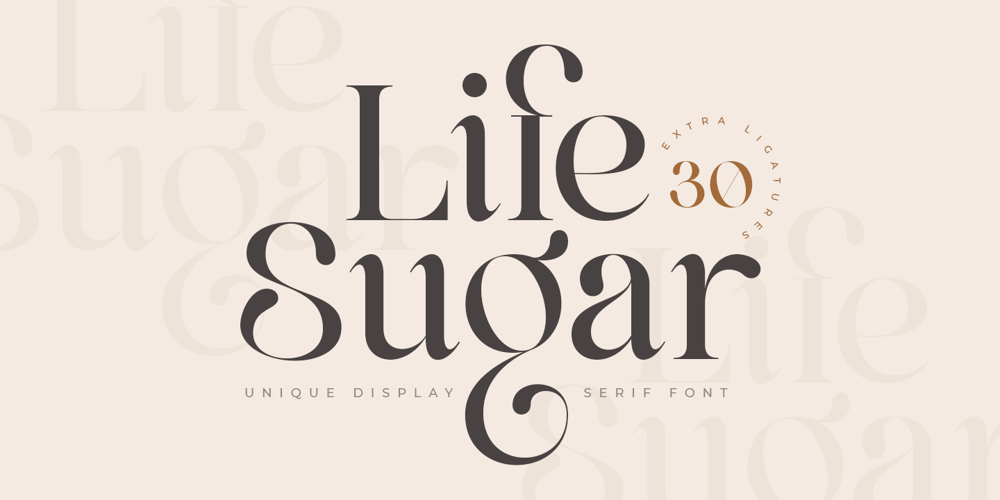
Life Sugar
Life Sugar font
Life Sugar Font Family was designed by Zamroni Hamzah and published by Sensatype Studio. Life Sugar contains 1 styles and family package options. About the ProductLife Sugar is an Unique Display serif font with luxury, elegant, modern, unique and classy-look. This font crafted specials for beauty-themed projects, ready to use on Magazine, Social Media, Branding, Logo, and Many more that needs Modern touches.Life Sugar is also included full set of: uppercase and lowercase letters multilingual characters numerals punctuation Wish you enjoy our font and if you have a question, don’t hesitate to drop message & I’m happy to help 🙂